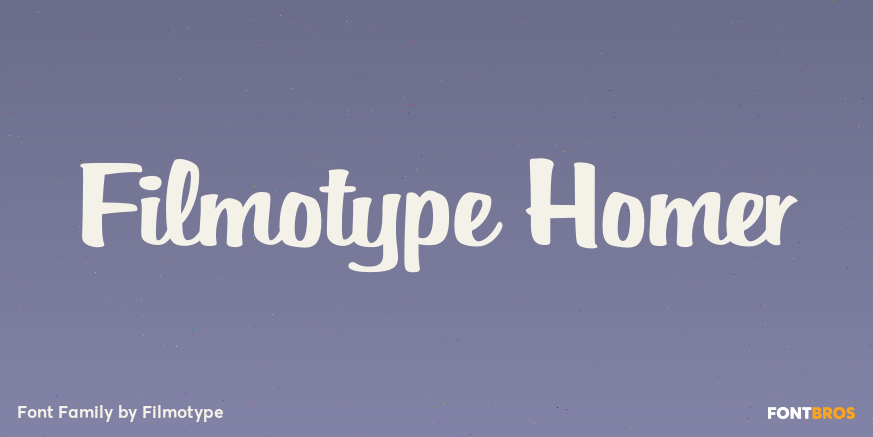
Filmotype Homer
About Filmotype Homer
Introduced by Filmotype in the early to mid-1950s, Filmotype Homer was created in response to customer demand for a wider brush script expanding on Filmotype\’s popular sign painter sho-card lettering styles used in the late 1940s through the 1950s. With…